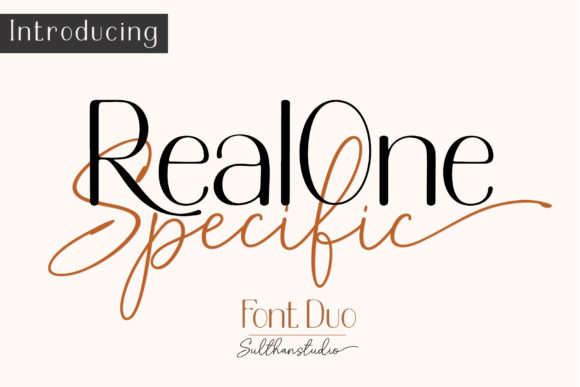
Journey into the realm of typography and be enthralled by Real One Specific, a breathtaking duo font that will ignite your imagination and elevate your creative projects to extraordinary heights. Let your words dance with grace and elegance as they adorn your designs, captivating your audience with their charm and sophistication.
Dive into the depths of Real One Specific's sans serif and script fonts, a harmonious blend that offers endless possibilities for expression. This font family is a versatile chameleon, effortlessly adapting to a kaleidoscope of design styles, from whimsical invitations to sleek branding. Whether you seek to craft heartfelt quotes, alluring social media posts, or striking logos, Real One Specific will be your trusty companion, guiding you towards typographic greatness.
Unleash the power of Real One Specific and witness the transformation of your creative visions into tangible masterpieces. This font is not merely a collection of letters; it's an orchestra of emotions, a symphony of style, ready to orchestrate a visual symphony that resonates with your audience. Let Real One Specific be the conductor of your creative journey, leading you to new horizons of design excellence.
With Real One Specific, your words will transcend the boundaries of the ordinary and take flight into the realm of the extraordinary. Its carefully crafted curves and delicate lines will caress your designs, imbuing them with a touch of elegance and timeless beauty. Prepare to be mesmerized as your projects come alive, imbued with a captivating aura that commands attention and leaves a lasting impression.
Embrace Real One Specific today and embark on a typographic odyssey that will redefine your creative boundaries. Let this font be your muse, your inspiration, your guiding light as you craft designs that ignite hearts and minds. Real One Specific awaits you, ready to unlock the true potential of your creativity.